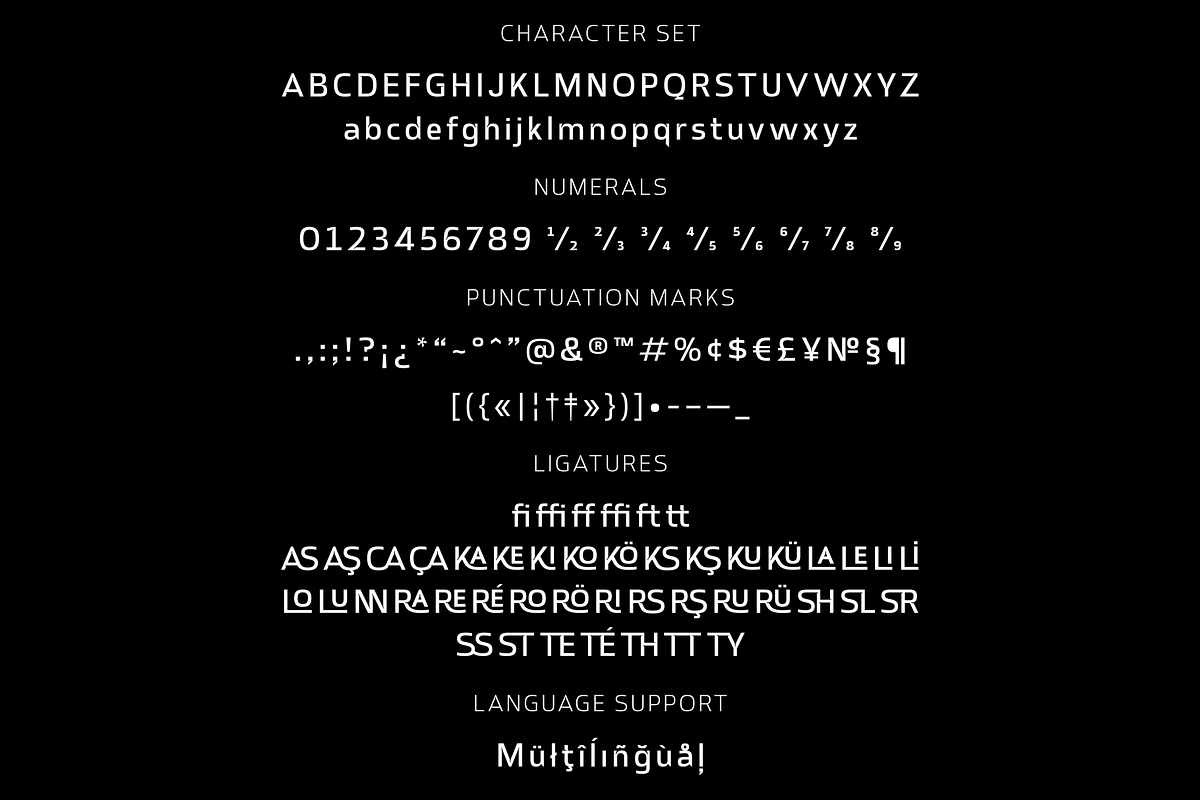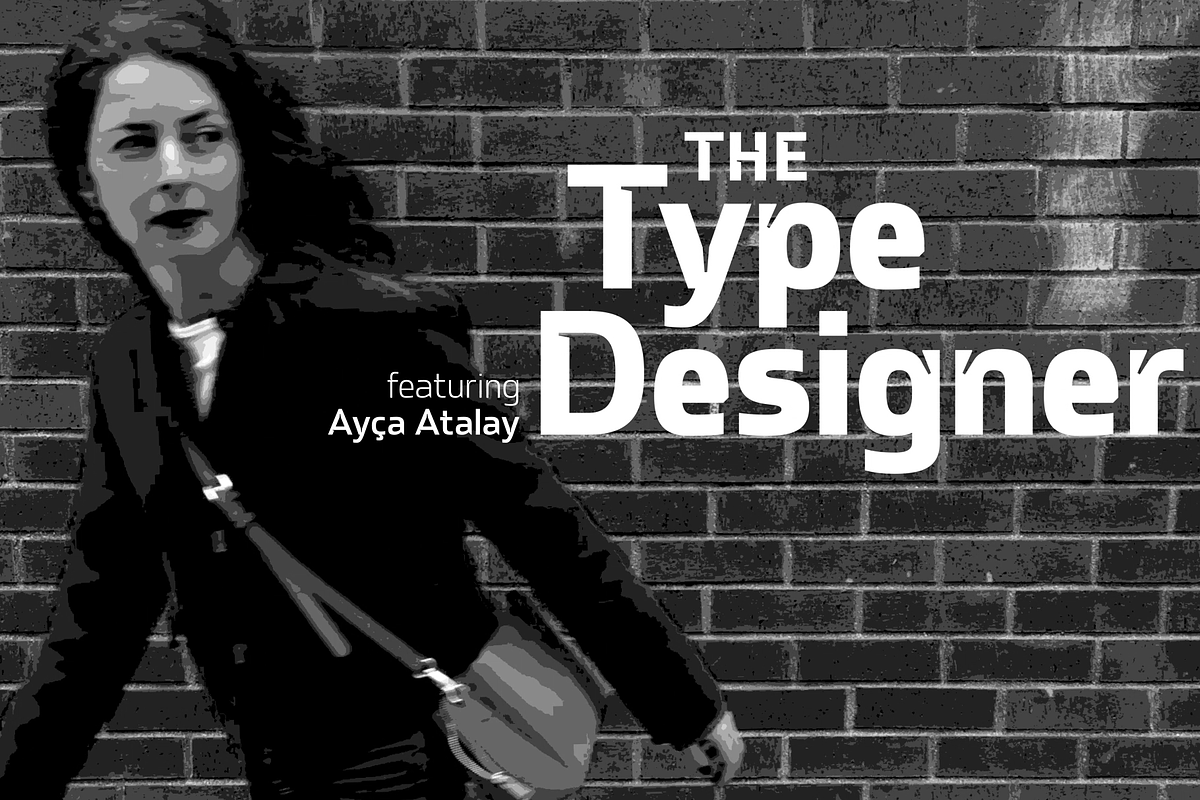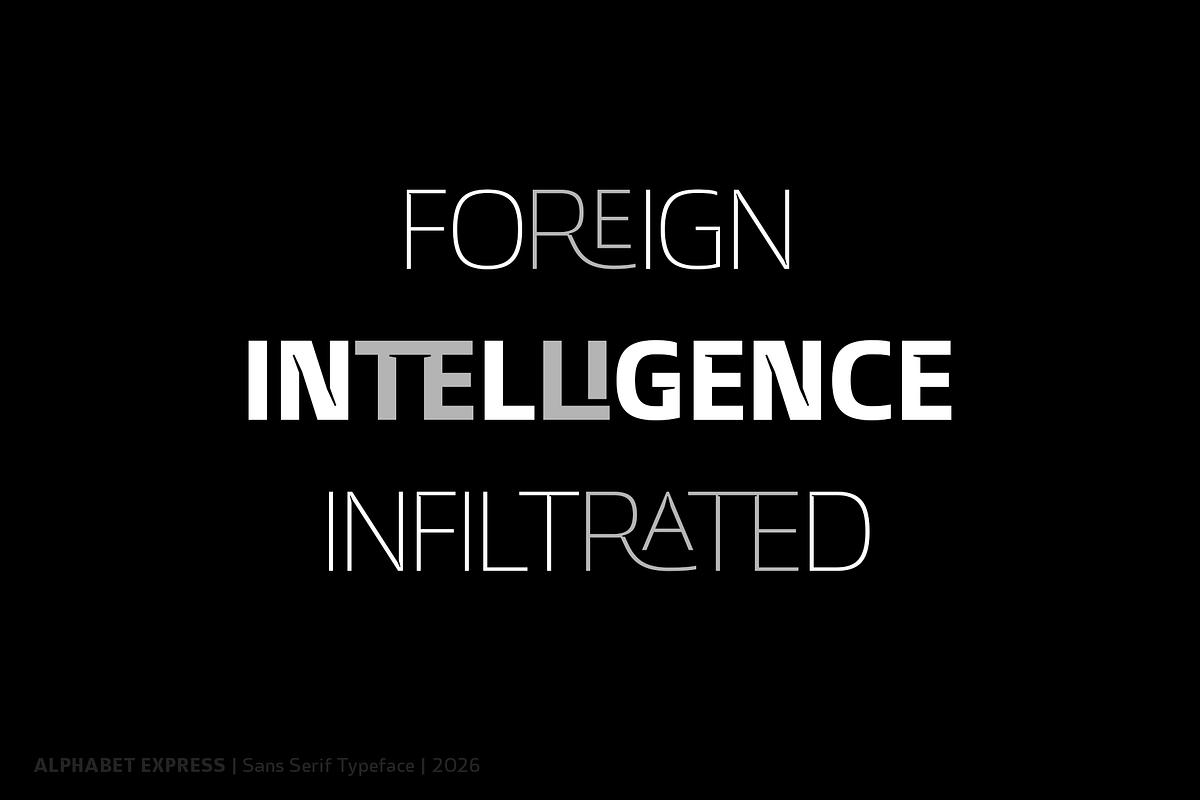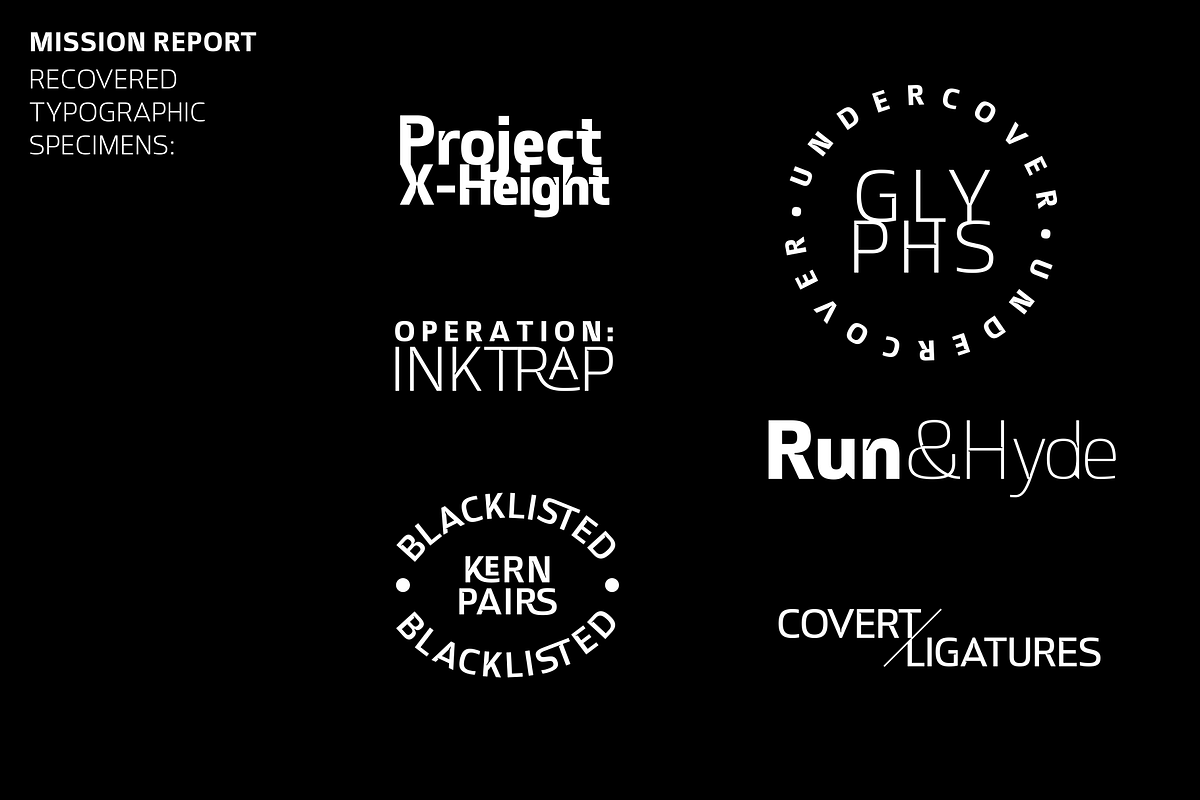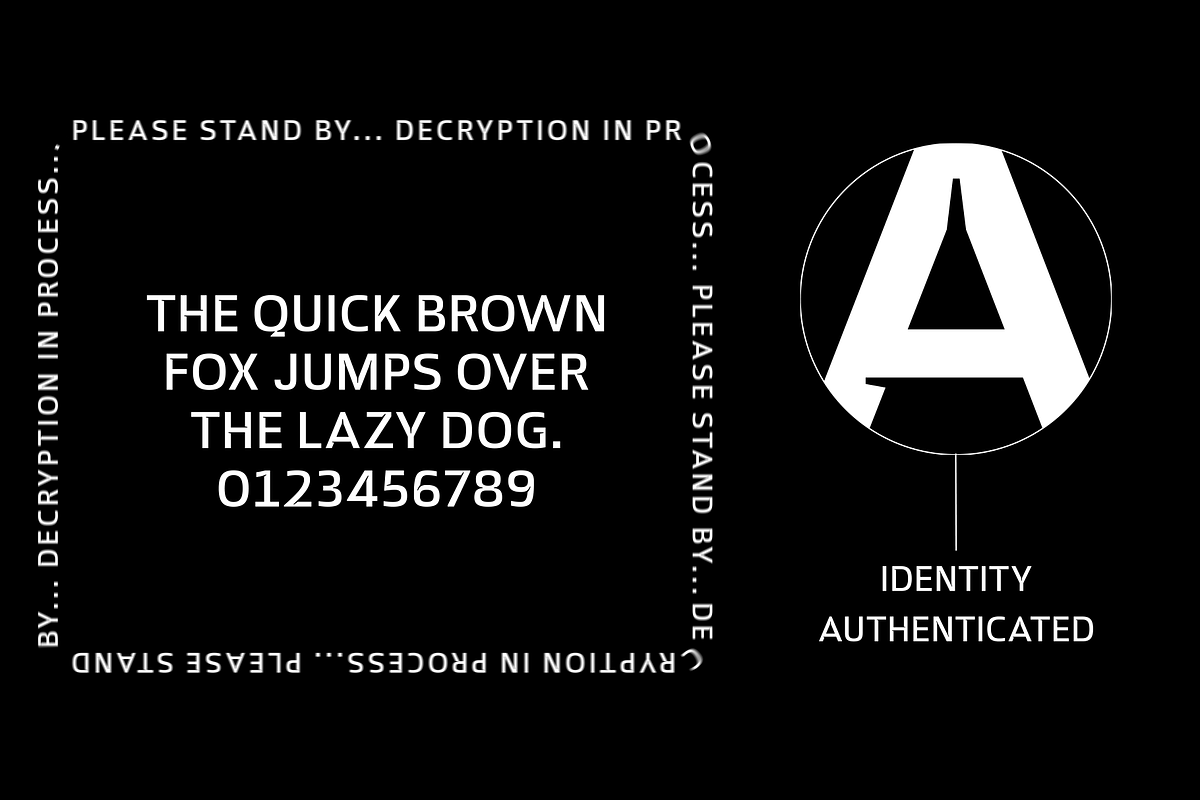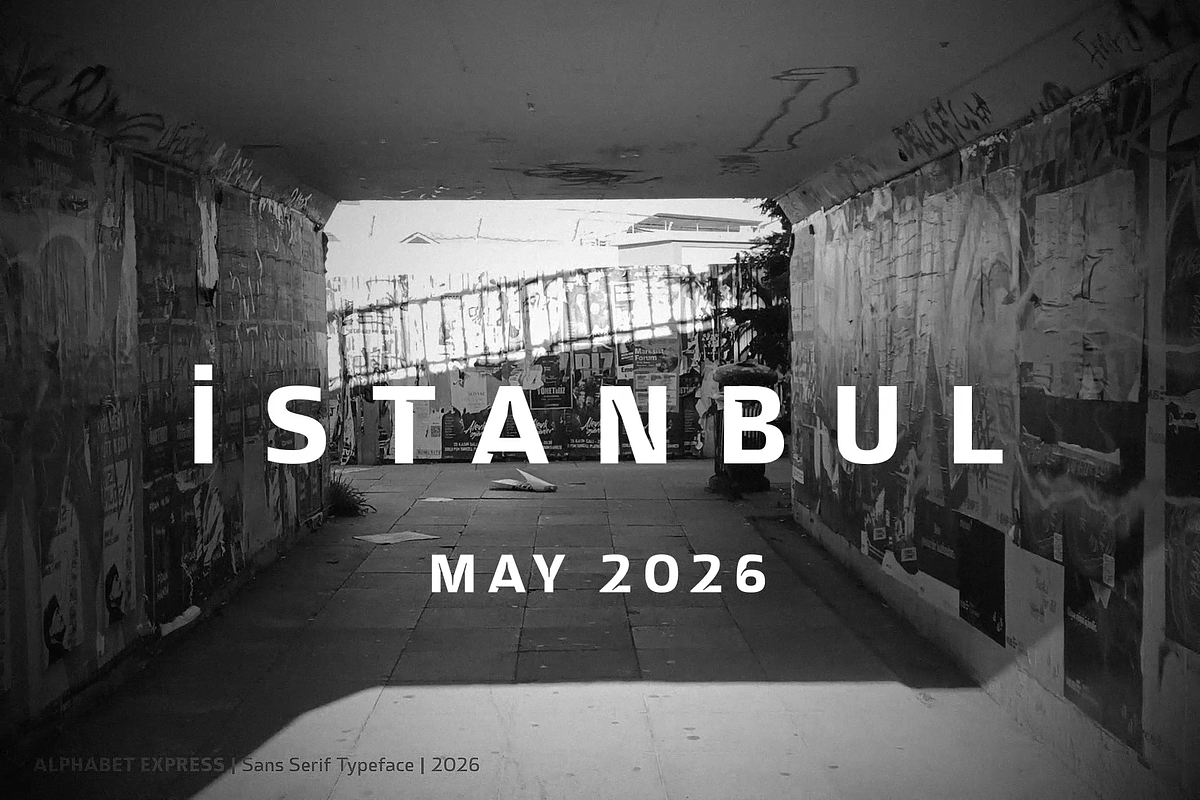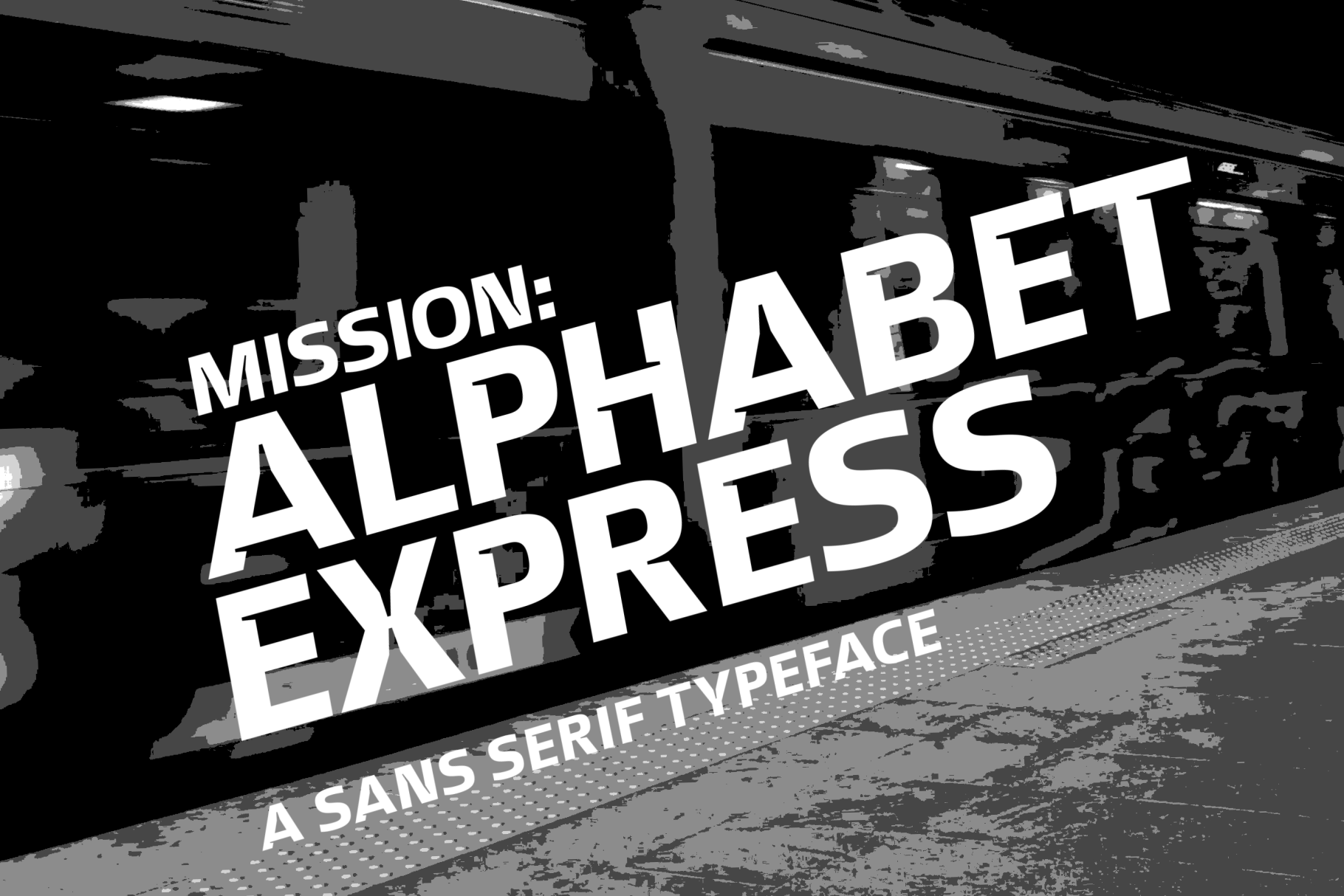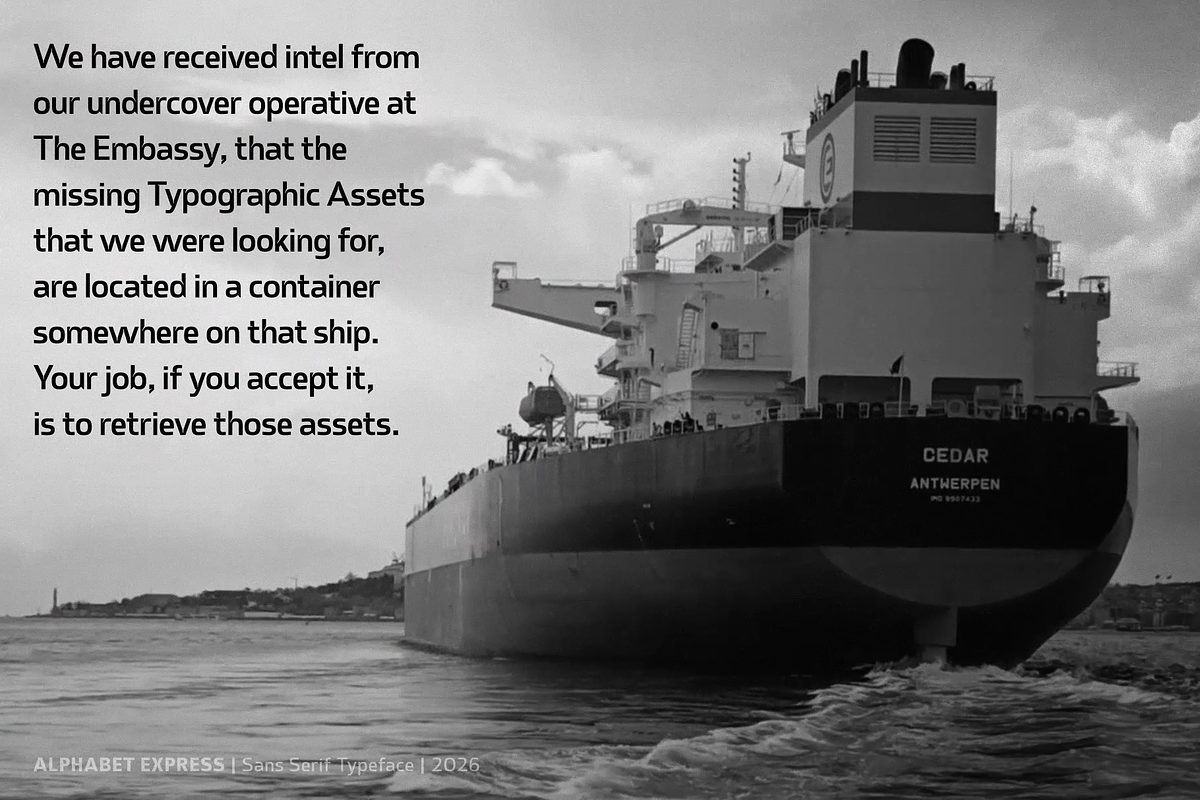
Alphabet Express Sans Serif Typeface
Alphabet Express Display Sans
Alphabet Express is a Sans Serif Family with multiple weights.
It has the clarity that inherently exists with strong sans serif typefaces, with the addition of a dynamic and daring flair.
Alphabet Express works perfectly in all sizes and contexts, but is exceptionally powerful in display sizes (headlines, titles, logos, etc.)
It has 40 Discretionary Ligatures that enable endless options to create attention grabbing headlines and titles.
Standard Characters
Numerals & Fractions
Full Set of Punctuation Marks
Standard & Discretionary Ligatures
8 Weights (Thin to Black)